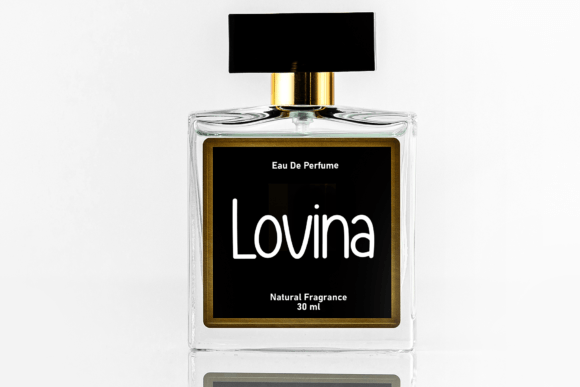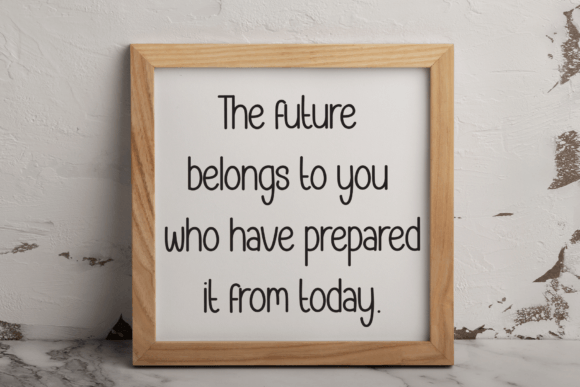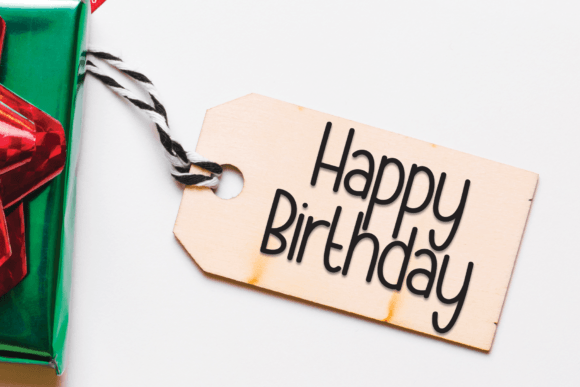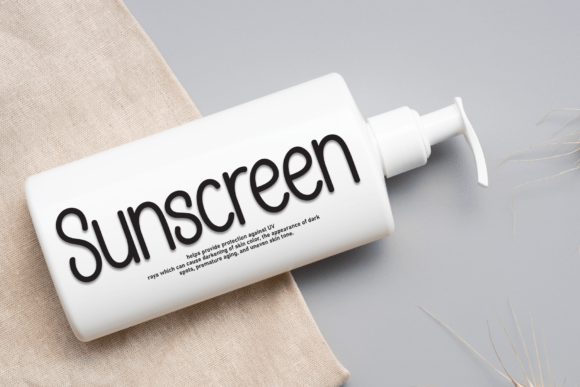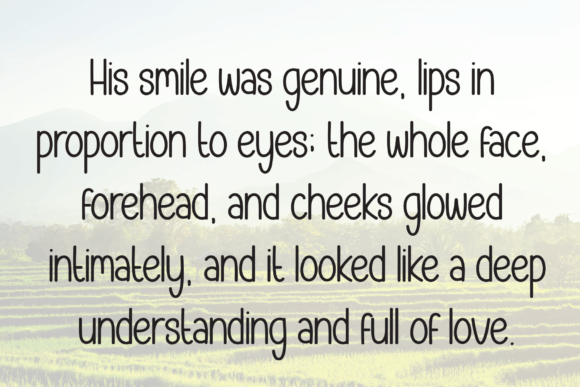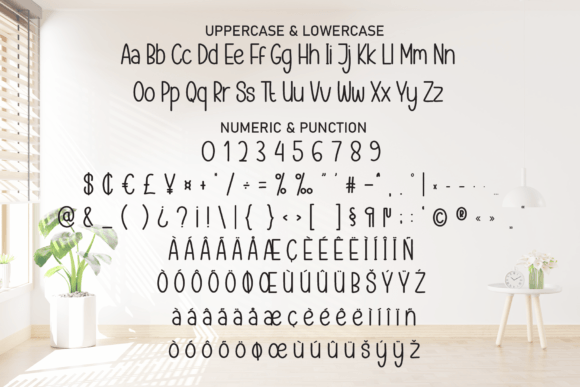
Introduction to Simple Home Font
Remember the joy of crafting a heartfelt invitation by hand? The way the pen glides across the paper, leaving a trail of personal touches and love? For many of us, this is the essence of what makes design truly special. And that’s exactly what the Simple Home Font is all about – bringing warmth and personality to your creations.
As a valuable design resource, the Simple Home Font is a high-quality, free download that’s perfect for any creative project. Its smooth, flowing strokes and whimsical character make it ideal for invitations, branding, and more. With its transparent background, you can easily layer it over images or use it as a standalone element – the possibilities are endless.
Key Features of Simple Home Font
- High-quality design resource ideal for creative projects and personal use
- Available for free download with a transparent background for seamless integration
- Features a clean and modern design with a medium font size of 36 points
- Resolution-independent and scalable for use in various digital and print applications
- Perfect for use in logos, headings, and body text in websites, social media, and other design projects
Honest Review: Simple Home Font
As a designer, I’m always on the lookout for high-quality design resources that can elevate my creative projects. Recently, I stumbled upon the Simple Home Font, and I’m excited to share my thoughts on it.
- Unique and elegant design style that suits a variety of creative projects
- High-quality vector graphics that ensure crisp and clear display
- Transparent background option that allows for seamless integration into any design
- Free download available, making it an excellent choice for designers on a budget
- Limited character set, which may not be suitable for complex text-based designs
- No bold or italic font styles available, which may limit its use in certain projects
Overall, I’m impressed with the Simple Home Font. Its elegant design style and high-quality vector graphics make it a great addition to any designer’s toolkit. While it may have some limitations, I believe it’s a solid choice for designers working on creative projects that require a simple yet elegant font.
Tips for Getting the Most Out of Simple Home Font
Experiment with different font sizes, colors, and combinations to achieve the desired effect. Use the transparent background to create a seamless design. Also, pair the font with other design elements to enhance its impact.
Use the Simple Home Font for various creative projects, such as designing a logo, creating a social media graphic, or making a presentation. Its versatility and high quality make it an ideal choice for designers and non-designers alike.
Compared to Simple Home Font, Open Sans is more refined and has a more transparent background, making it ideal for use in complex designs. While Simple Home Font is great for simple and straightforward designs, Open Sans offers more sophistication and nuance.